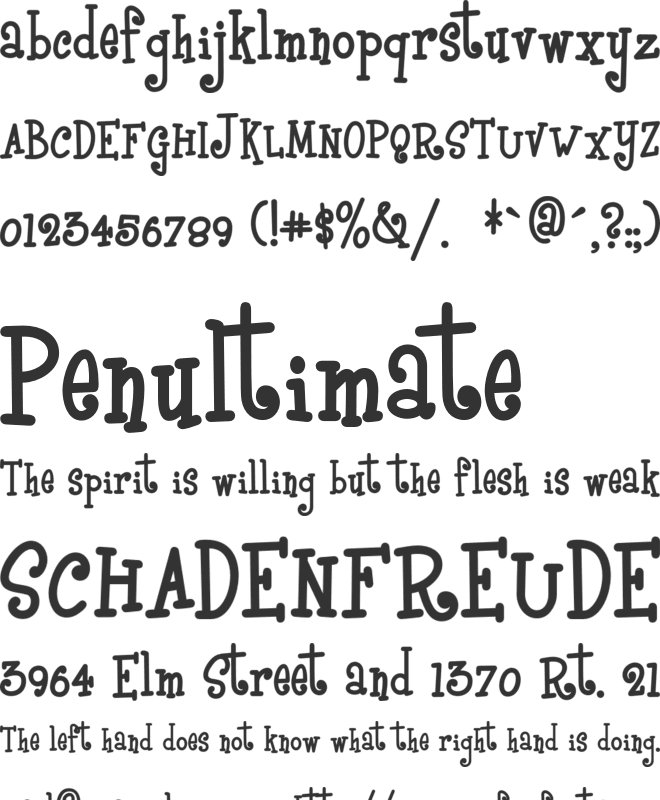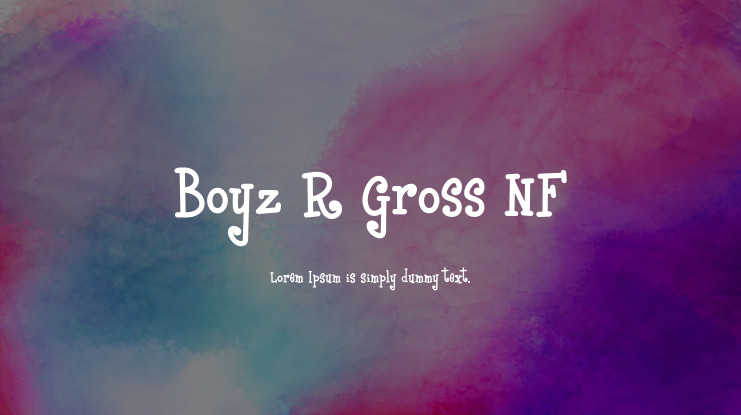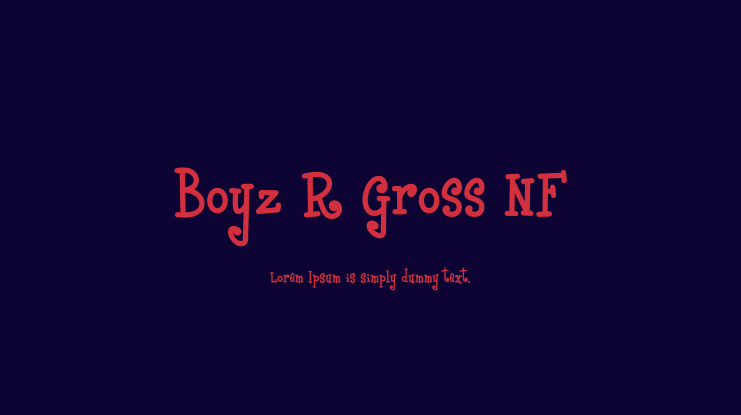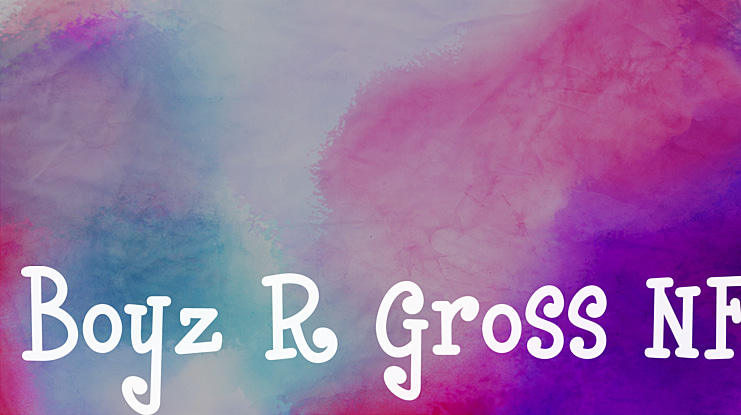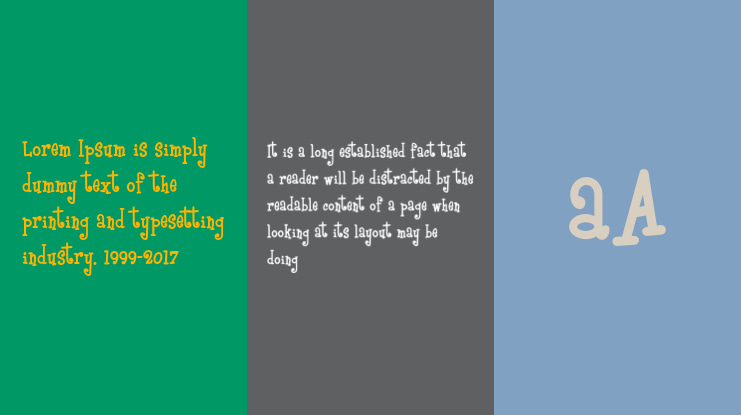
Boyz R Gross NF Font Family
Nick Curtis
I really like Robotic Attack Fonts’ freeware offering, Girls Are Weird. Unfortunately, the original font is very light in weight, hence only usable at very large sizes. My version adds several pounds without obfuscating the font’s inimitable charm.